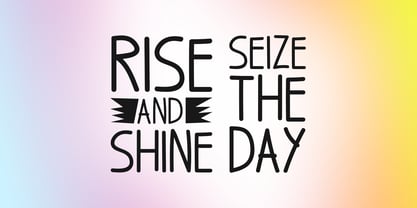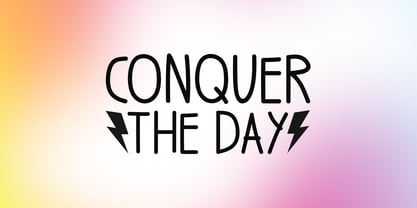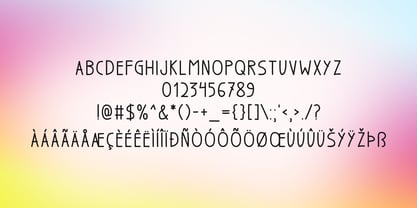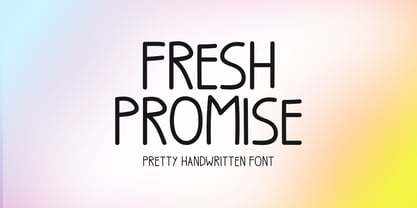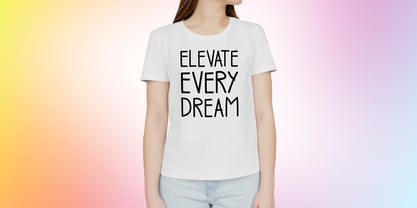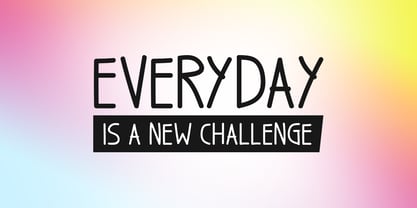
Fresh Promise
by Seemly Fonts
The Fresh Promise Font Family was designed by Md. Sohail Bhuiyan and published by Seemly Fonts. Fresh Promise contains 1 styles. More about this family
Fresh Promise is a clean, slim handwritten font with a natural flow and effortless charm. Its authentic strokes create a warm, genuine character while maintaining excellent readability. Perfect for branding, logos, social media, invitations, quotes, packaging, and signature-style designs, it adds a graceful handwritten touch to every creative project, bringing elegance, warmth, and timeless appeal to both print and digital creations.
Designers: Md. Sohail Bhuiyan
Foundry: Seemly Fonts